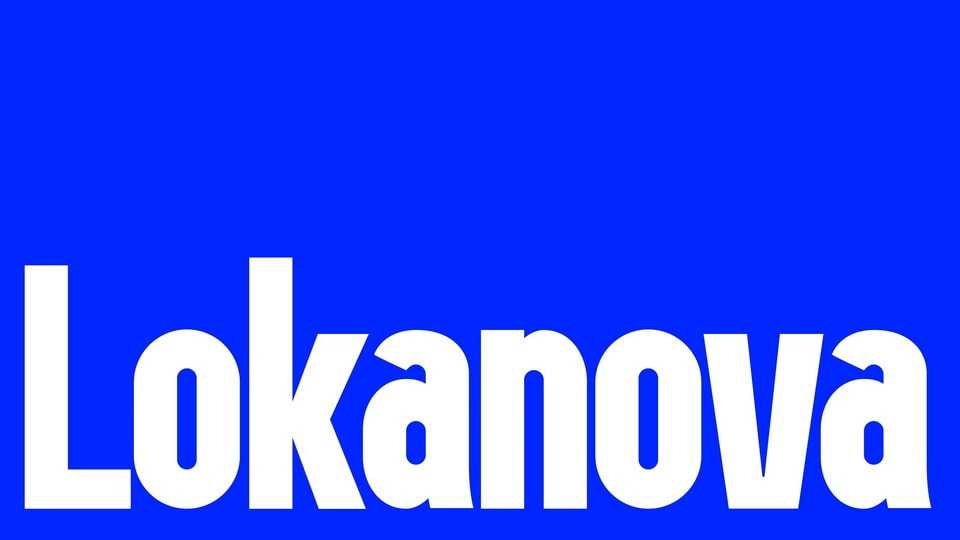
Download Lokanova font, a display typeface with a sans serif type designed in a bold and unique style to give the impression of a firm but still playful design.